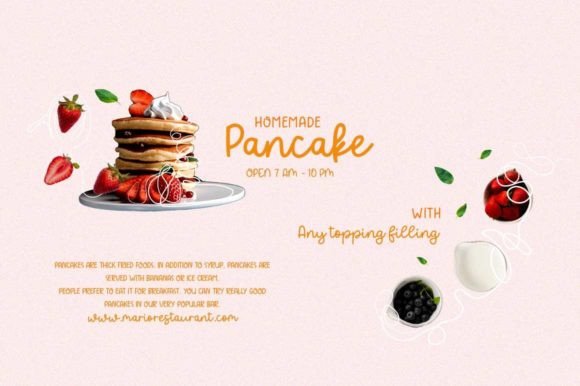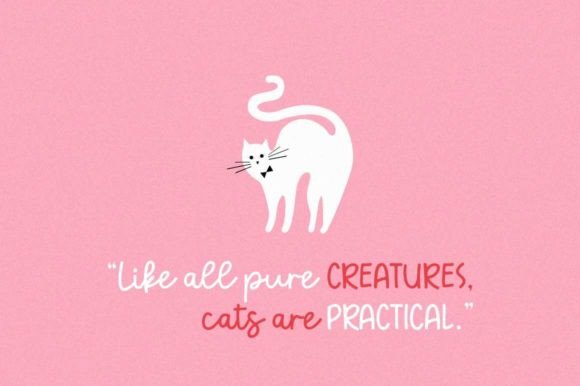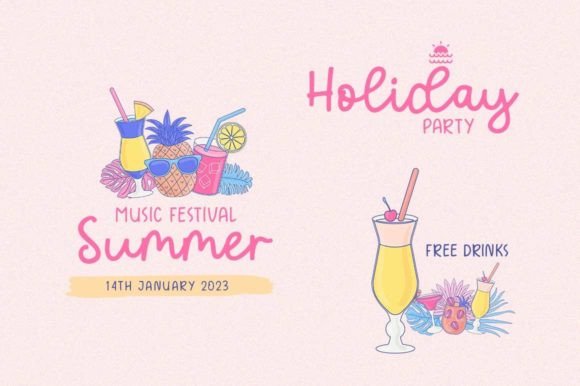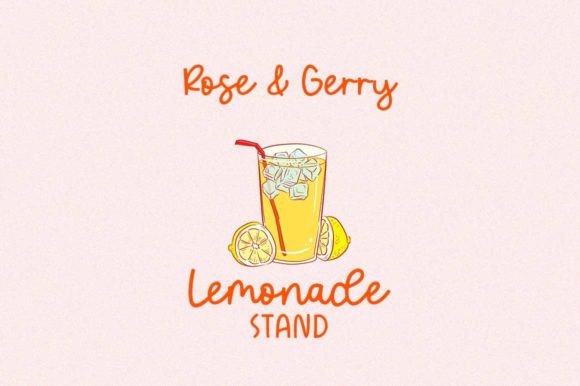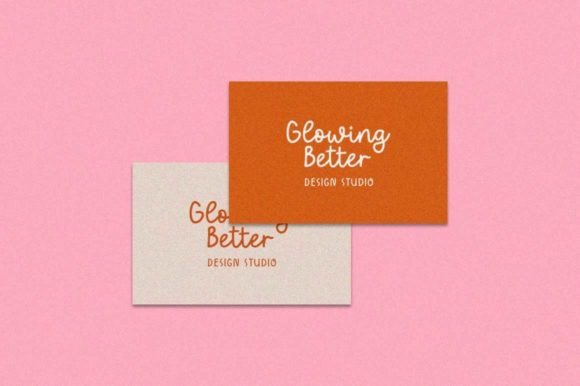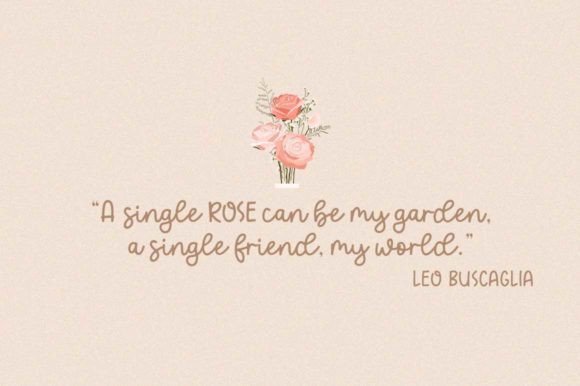
Introduction to Let’s Sparkle Font
Have you ever stared at a blank page, struggling to bring your creative vision to life? For designers and artists, those moments can be the most frustrating and yet the most inspiring. It’s in those moments that we search for the perfect design resource to spark our imagination and guide our brushstrokes.
That’s where the Let’s Sparkle Font comes in – a brand-new, high-quality handwritten font that’s about to become your go-to design companion. With its playful and happy look, it’s perfect for adding a touch of whimsy to your creative projects, from wedding invitations and greeting cards to logos and posters.
Key Features of Let’s Sparkle Font
- Unique sparkle effect, perfect for adding a touch of magic to your designs
Honest Review: Let’s Sparkle Font
I recently had the chance to work with the Let’s Sparkle Font and I must say, it’s a fantastic addition to any designer’s toolkit. The high-quality design and beautiful typography make it a perfect resource for any creative project.
- ✨ Unique and elegant design that adds a touch of magic to any text.
One of the standout features of the Let’s Sparkle Font is its transparent background, allowing for seamless integration into any design. I appreciate the designer’s attention to detail and commitment to providing a high-quality design resource.
⚠️ One minor limitation I noticed is that the font may not be as versatile as some other fonts on the market. It’s perfect for projects that require a touch of whimsy, but may not be the best choice for more straightforward or corporate designs.
Overall, I’m impressed with the Let’s Sparkle Font and would highly recommend it to designers looking for a high-quality, free download to add some sparkle to their creative projects.
Tips for Getting the Most Out of Let’s Sparkle Font
Use the Let’s Sparkle Font on a transparent background to create a stunning effect. Pair it with a high-quality image or design element to elevate your creative project.